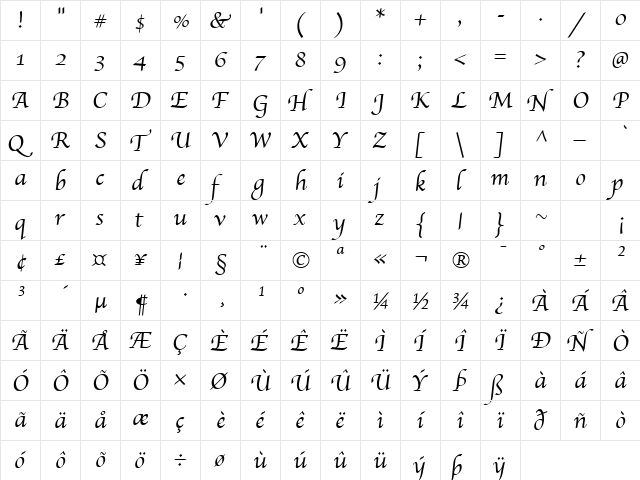
Apple Chancery Regular Font Preview
Apple Chancery Regular
Apple Chancery Regular Font Details
Design Context for Apple Chancery Typeface
Apple Chancery is a composed and adaptable typeface that performs quietly and consistently across a wide range of design contexts.